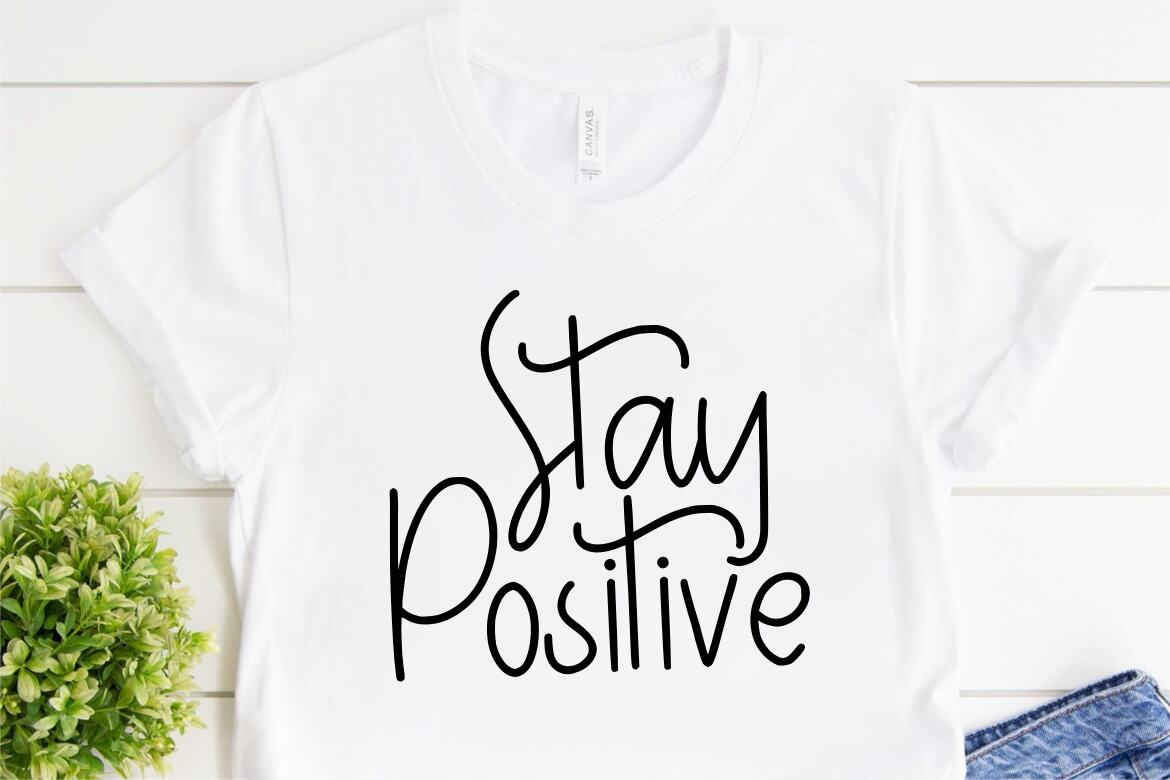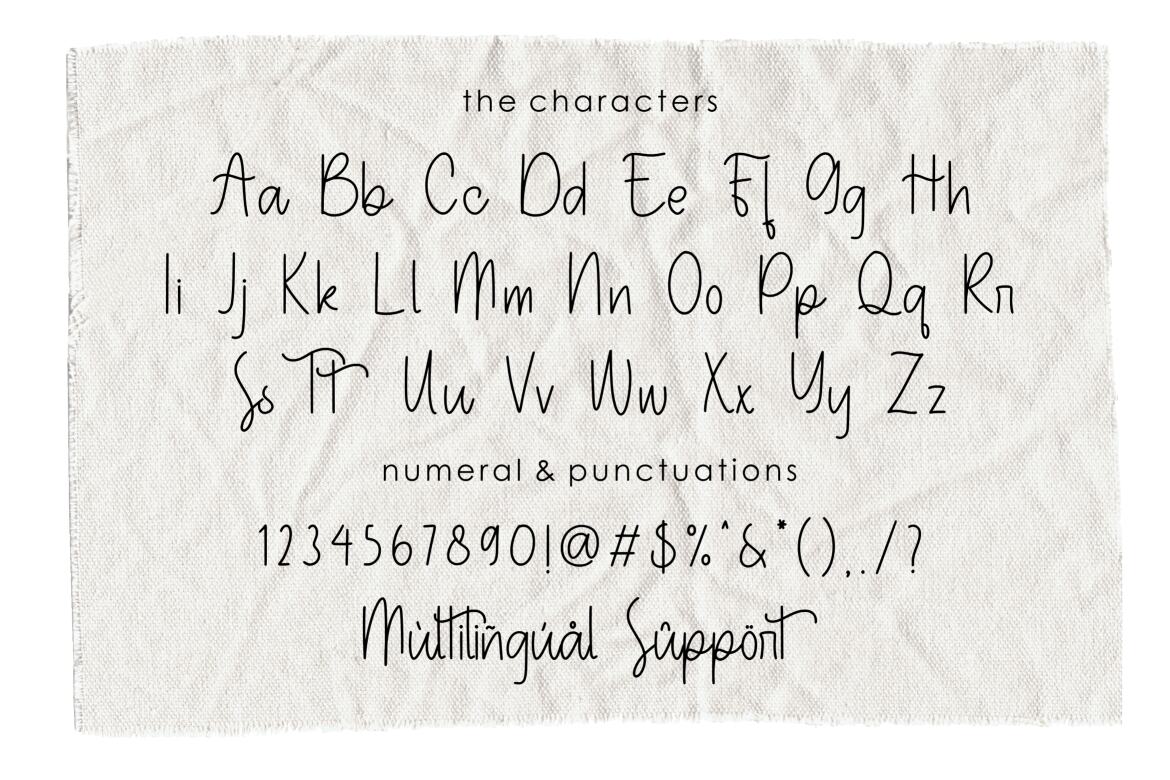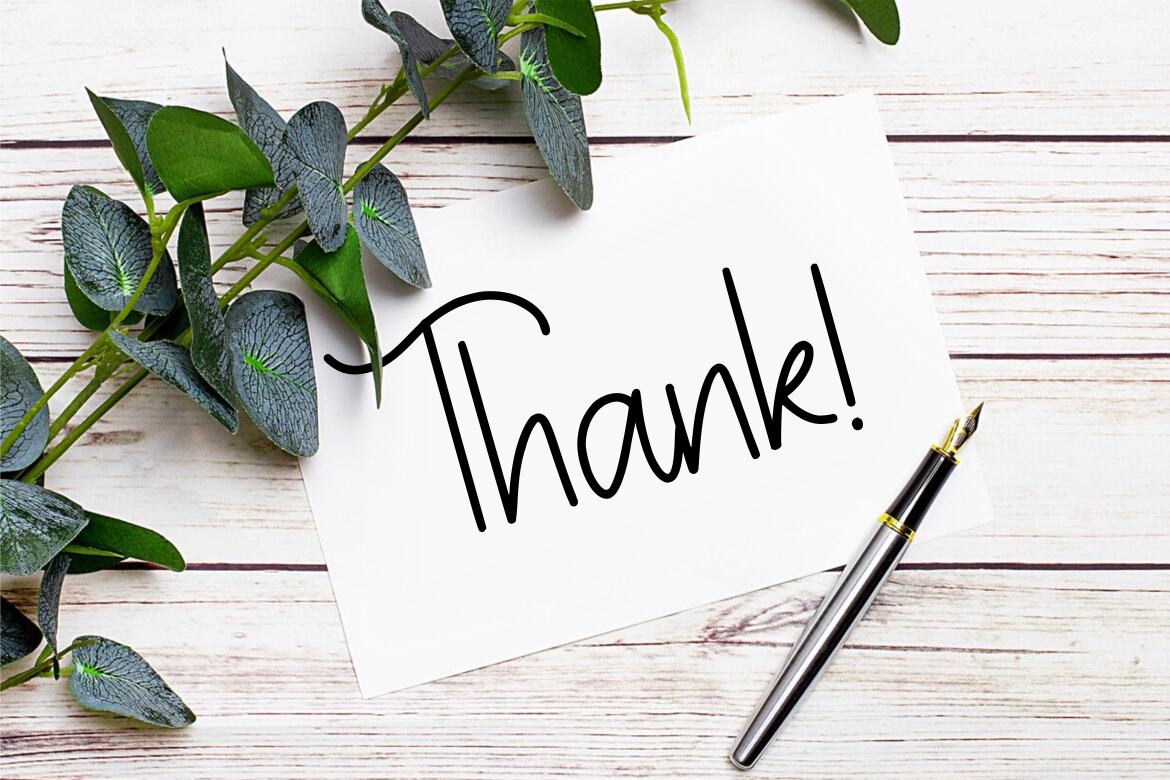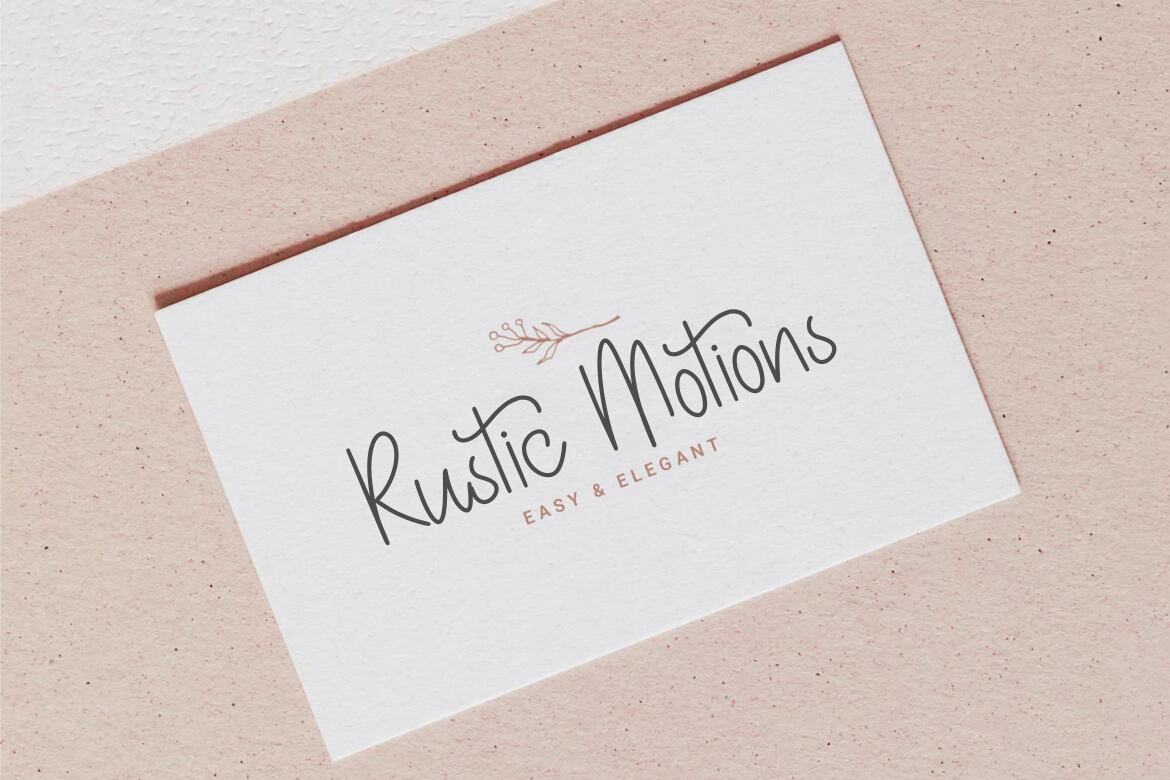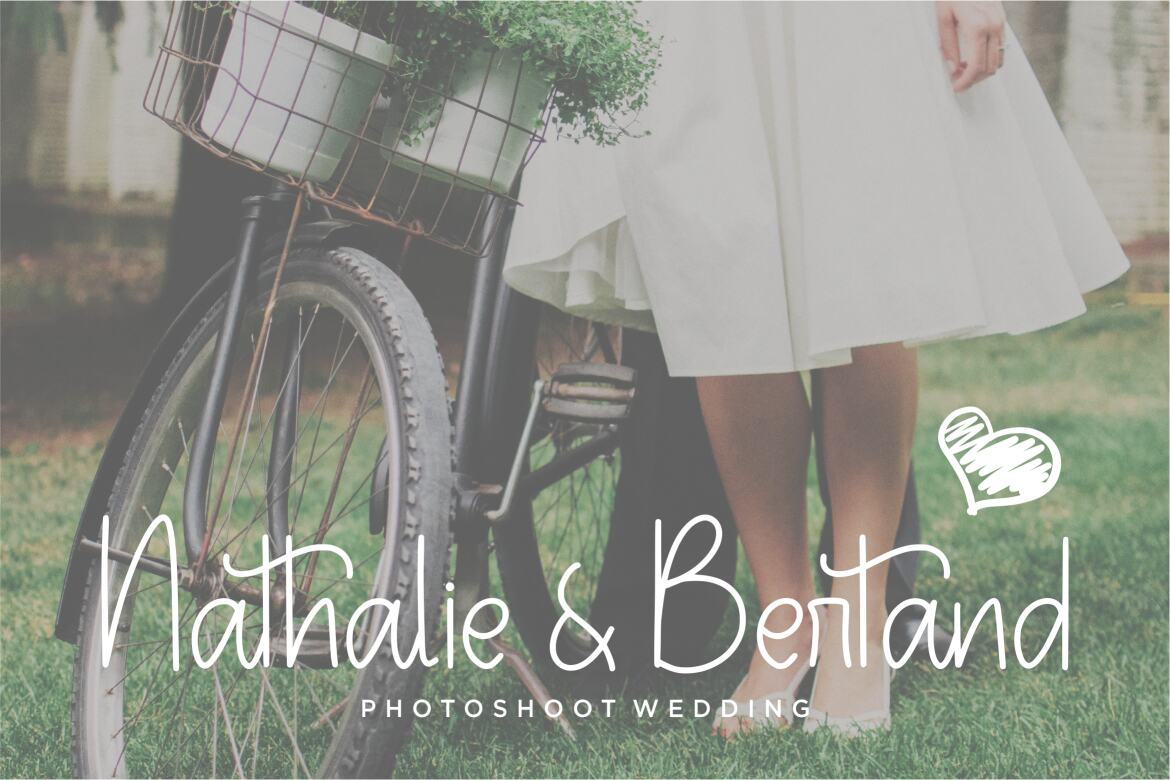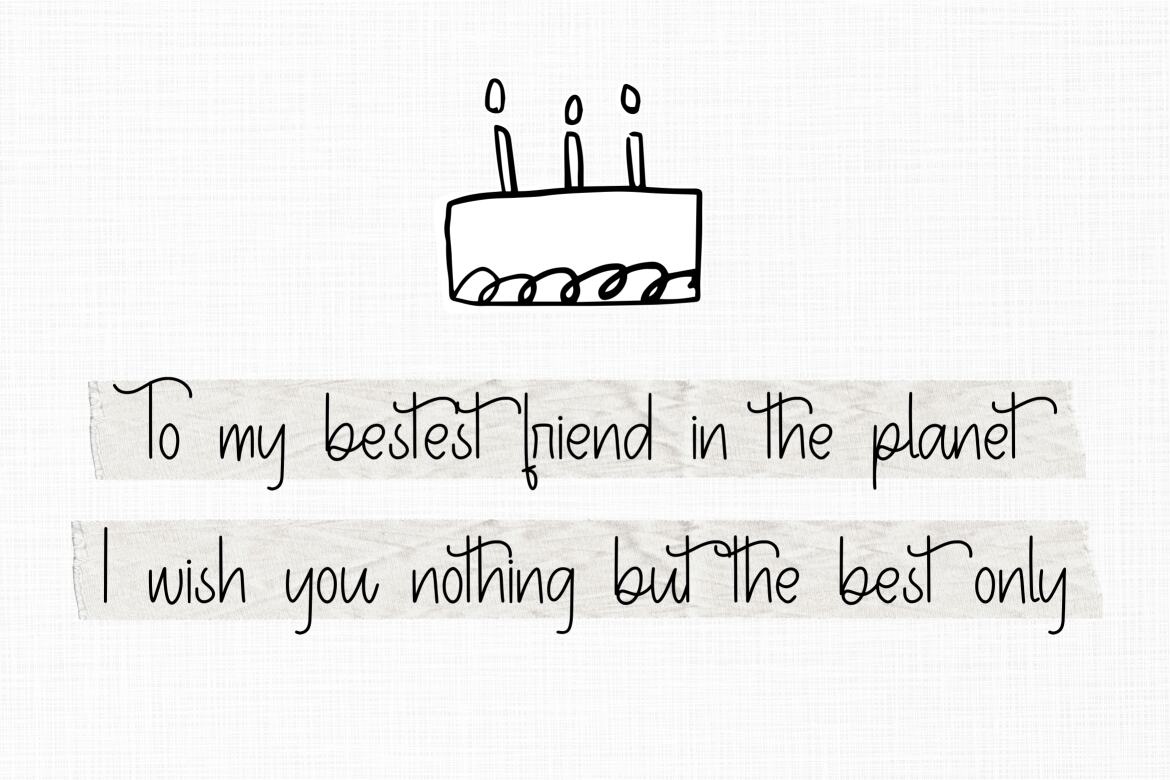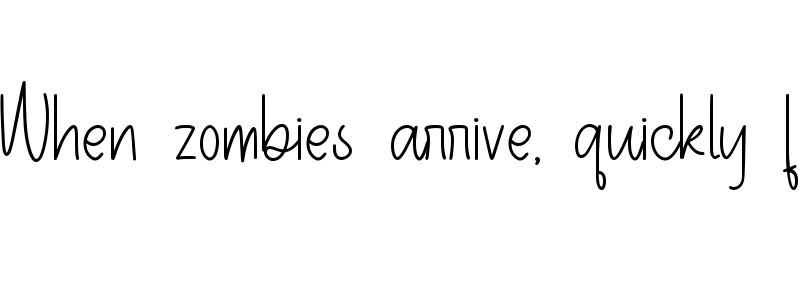
Unclefarms FREE Font
Proudly Present, Unclefarms
Unclefarms is a Monoline Handwritten Font
Unclefarms is perfect for product packaging, branding project, megazine, social media, wedding, or just used to express words above the background.